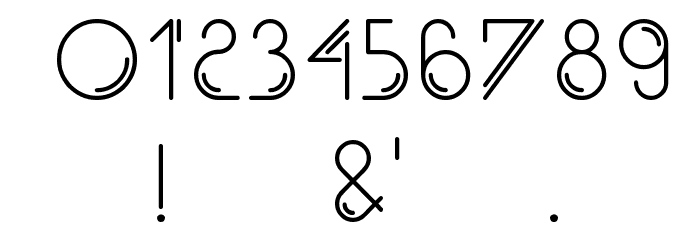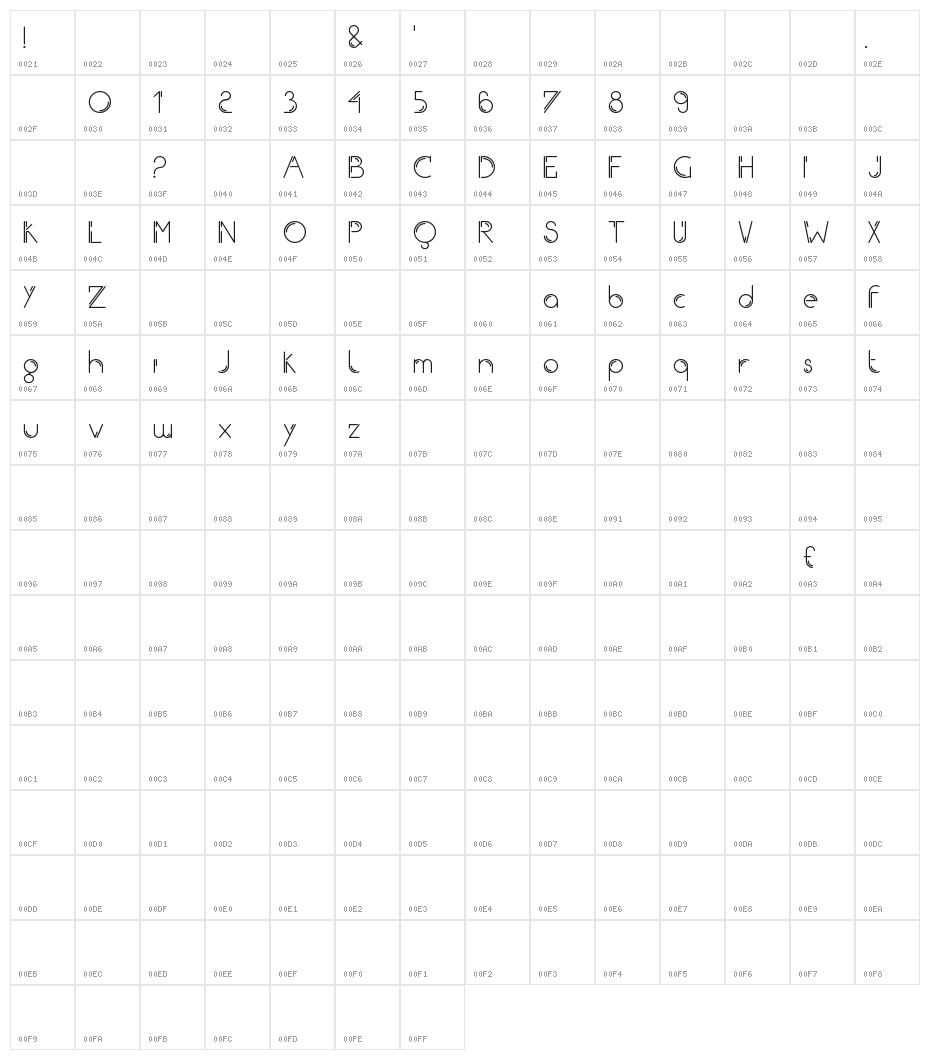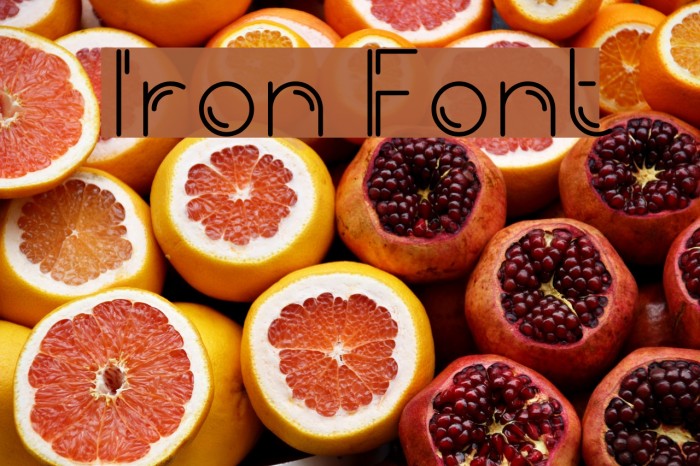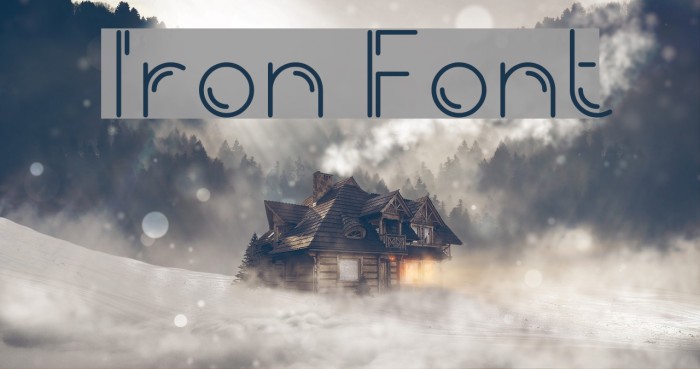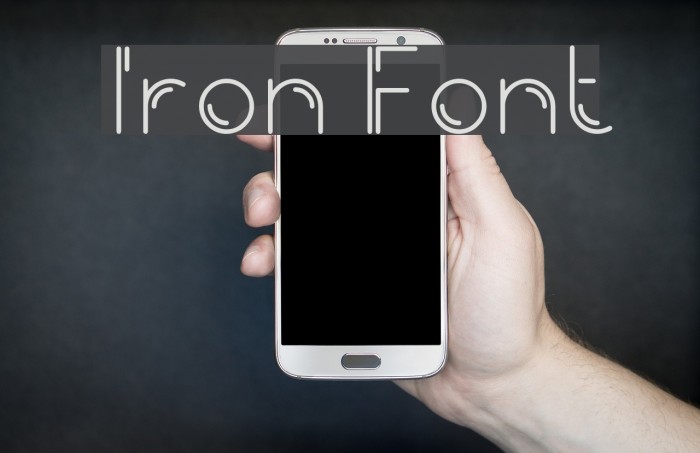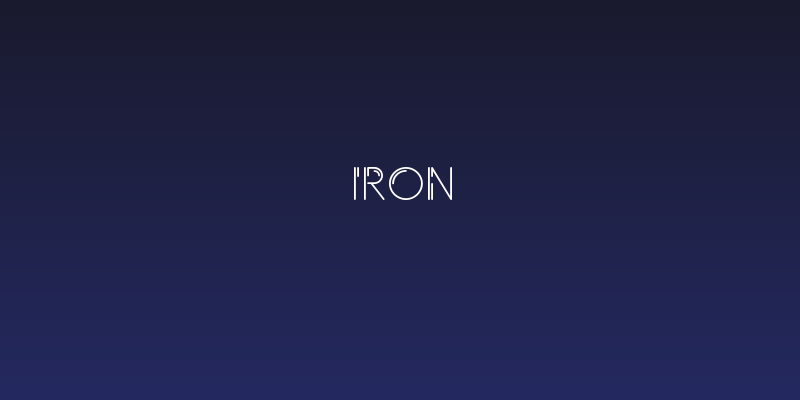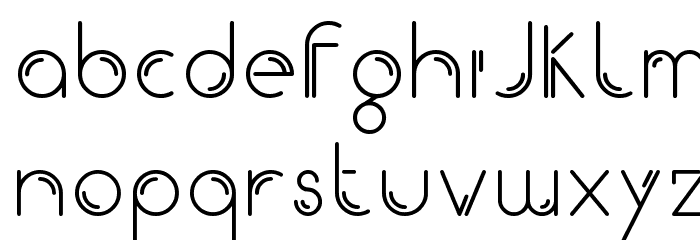
Iron Font
Iron Description
This font features a unique and modern design with a geometric and minimalist aesthetic. The characters are composed of clean, straight lines and curves, creating a futuristic and stylish appearance. The uppercase and lowercase letters maintain a consistent style, with some characters incorporating open spaces and breaks within the strokes, adding to the contemporary feel. The numerals and special characters follow the same design principles, ensuring a cohesive look across all elements. This font's distinct style makes it suitable for projects that require a modern and innovative touch.